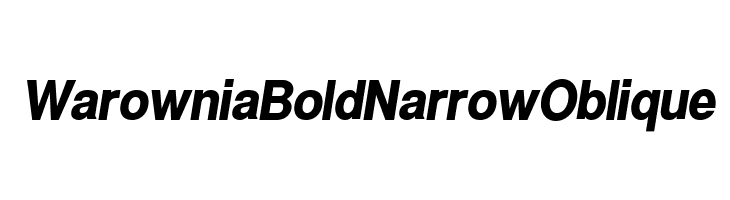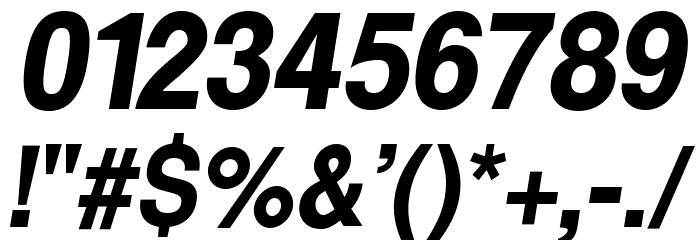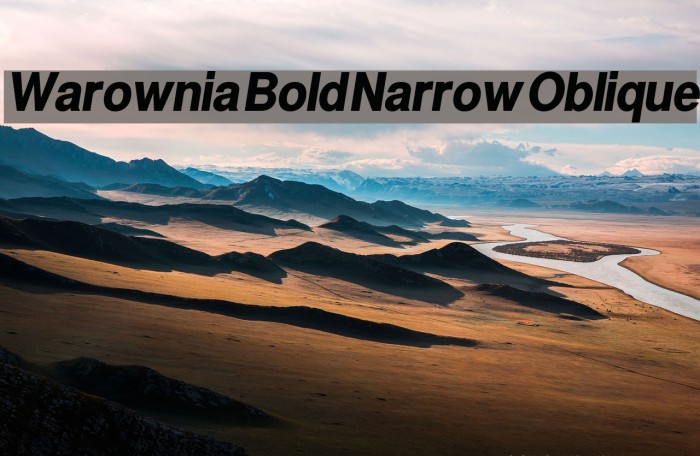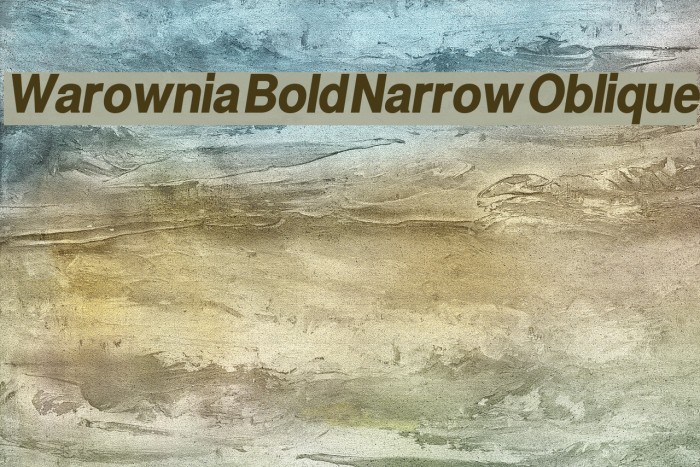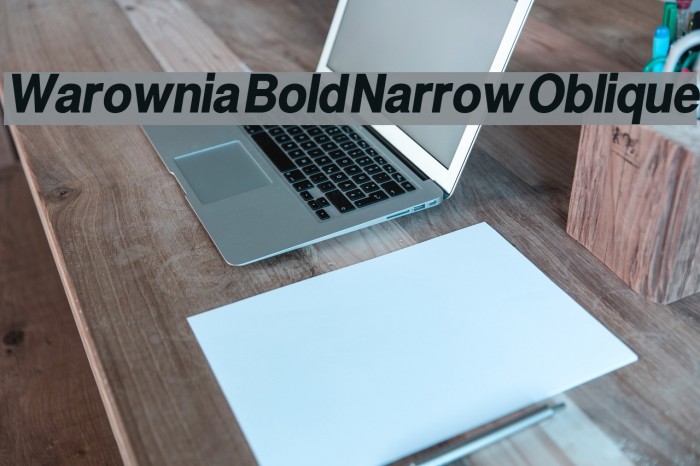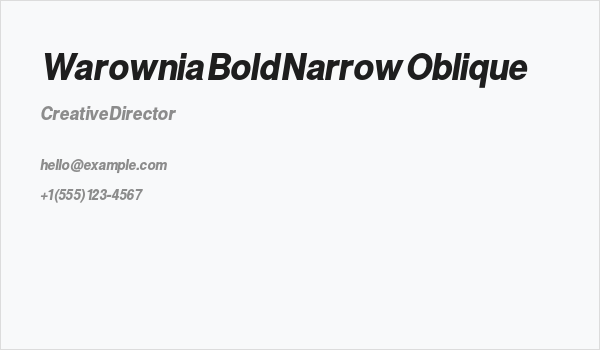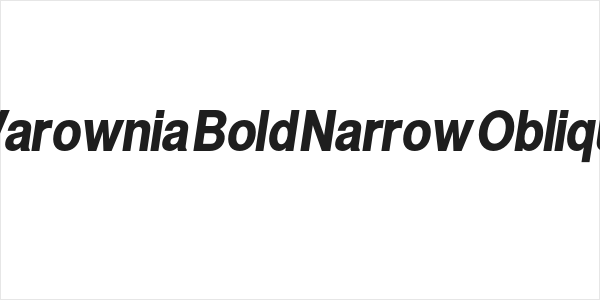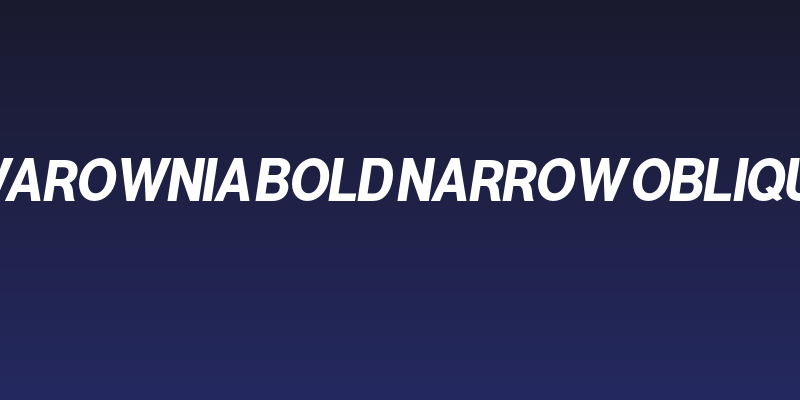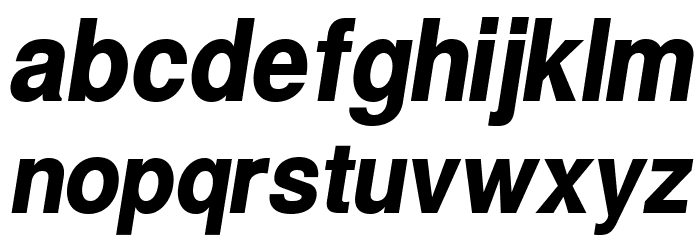
Warownia Bold Narrow Oblique Font
Warownia Bold Narrow Oblique Description
This font features a bold and narrow design with an oblique slant, giving it a dynamic and forward-leaning appearance. The uppercase and lowercase letters are well-proportioned, maintaining a consistent weight throughout. The numerals are clear and easily distinguishable, making them suitable for various applications. The special characters are crafted with precision, ensuring they complement the overall style. This font's boldness and narrow width make it ideal for impactful headlines and titles, while the oblique angle adds a touch of modernity and movement.
| Proposed Projects | Ideal for headlines, advertising, branding, and modern design projects. |